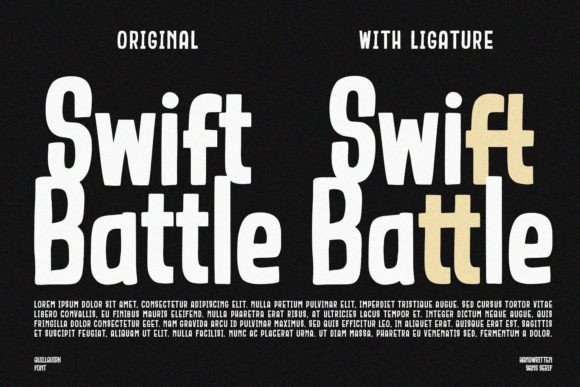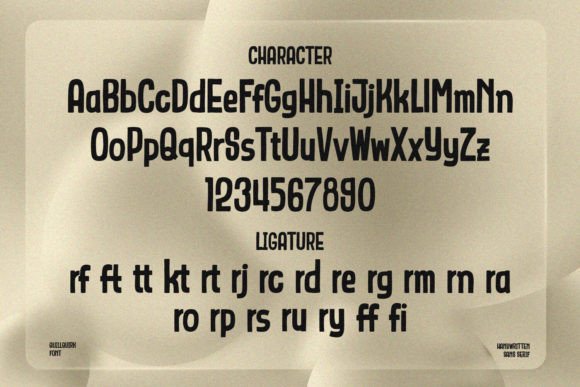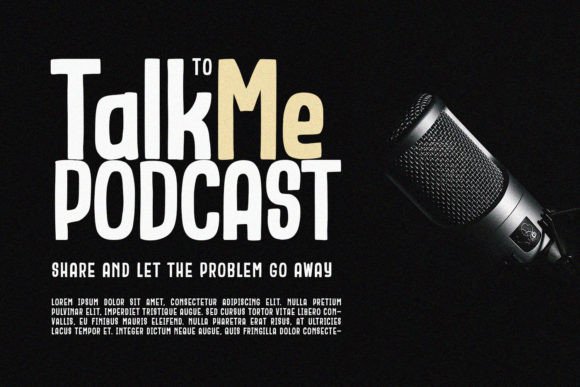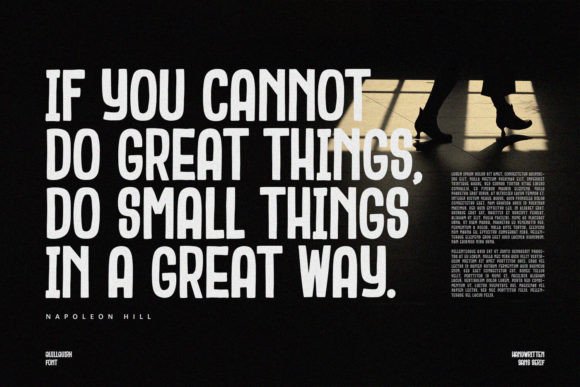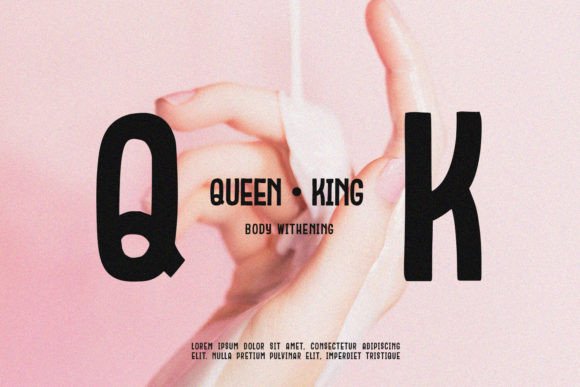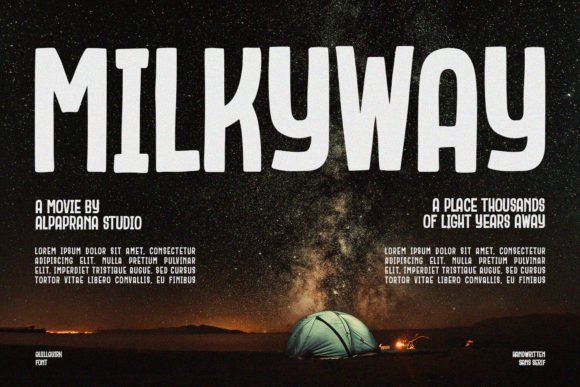
Introduction to QuillQuirk Font
Have you ever been in a rush to meet a design deadline, frantically searching for the perfect font to elevate your creative project? You scroll through countless options, but none seem to capture the essence of your vision. This is where the QuillQuirk Font comes in – a game-changing sans serif font that effortlessly blends authenticity with modernity.
As a designer, you understand the importance of having a reliable design resource that can be used across various mediums. Whether it’s packaging, posters, or t-shirts, the QuillQuirk Font is an ideal choice for any creative project. Its versatility and high quality make it a valuable addition to your design toolkit, allowing you to focus on what matters most – bringing your ideas to life.
Key Features of Quillquirk Font
- Unique Hand-Drawn Style: Quillquirk Font offers a distinctive, hand-drawn aesthetic that’s perfect for creative projects requiring a personal touch.
- Transparent Background: Quillquirk Font’s transparent background makes it easy to layer over other design elements, allowing for maximum flexibility in creative projects.
- High Resolution: The font is available in high-resolution formats, ensuring that it looks sharp and clear even at larger sizes, making it ideal for large-scale design projects.
- Perfect for Creative Projects: Quillquirk Font’s unique style and high-quality design make it an excellent choice for designers working on creative projects, such as branding, advertising, and editorial design.
Honest Review: Quillquirk Font
As a designer, I’m always on the lookout for high-quality fonts to elevate my creative projects. Recently, I stumbled upon the Quillquirk Font, and I’m excited to share my honest review with you.
Here are some things that I think work well with the Quillquirk Font:
- ✨ High-quality design: The font is beautifully crafted, with a unique blend of elegance and playfulness that makes it perfect for creative projects.
- ✨ Transparent background: This feature allows for easy customization and versatility in design applications.
- ⚠️ Limited font styles: The Quillquirk Font is available in only a few styles, which may limit its use in certain projects.
- ⚠️ Not ideal for body text: While the font is perfect for headings and titles, it may not be the best choice for large blocks of body text.
Overall, I’m impressed with the Quillquirk Font’s high-quality design and versatility. It’s an excellent resource for designers working on creative projects, and I would definitely recommend it as a design resource.
To get the most out of Quillquirk Font, use it in conjunction with other design resources, such as graphics and images. Experiment with different font sizes and styles to create a unique and eye-catching look.
The Quillquirk Font is perfect for a variety of creative projects, including branding, marketing materials, and social media graphics. Its high-quality design and transparent background make it a valuable asset for any designer or artist.
Can I use Quillquirk Font for a large-scale creative project?
Yes, the Quillquirk Font is designed to be scalable, making it perfect for large-scale creative projects. Whether you’re designing a logo, creating a poster, or building a website, the Quillquirk Font will look great at any size.